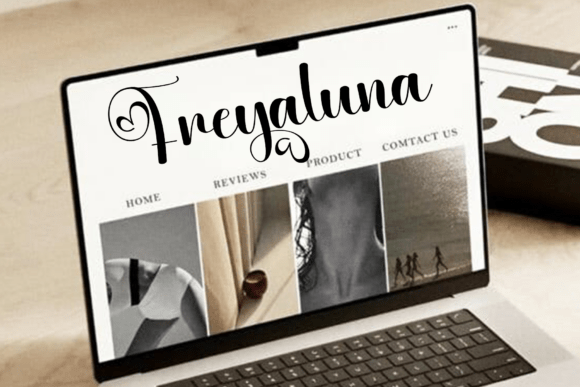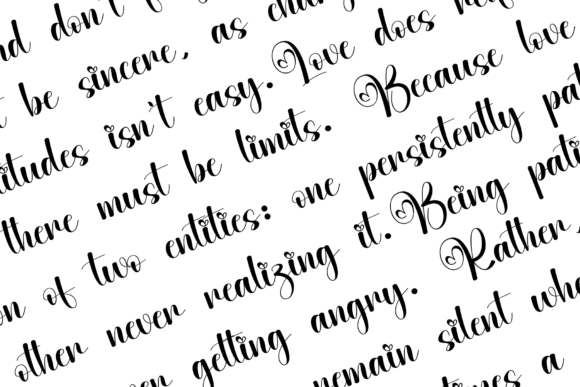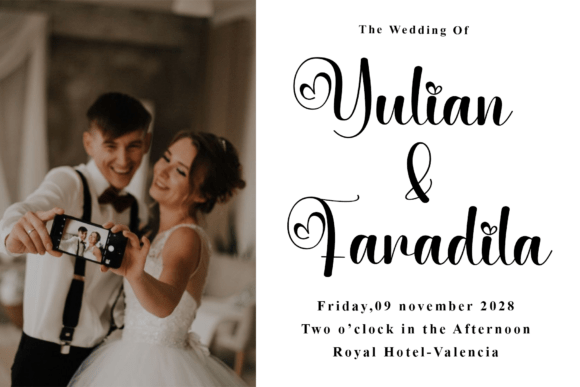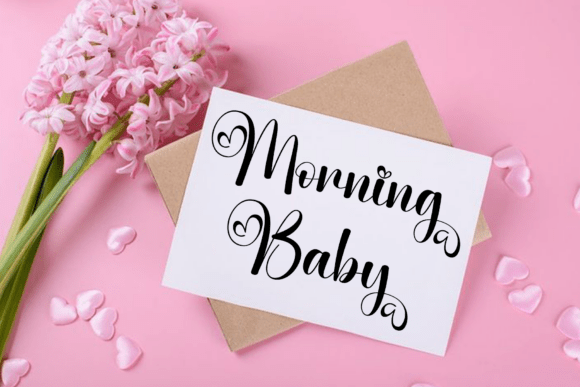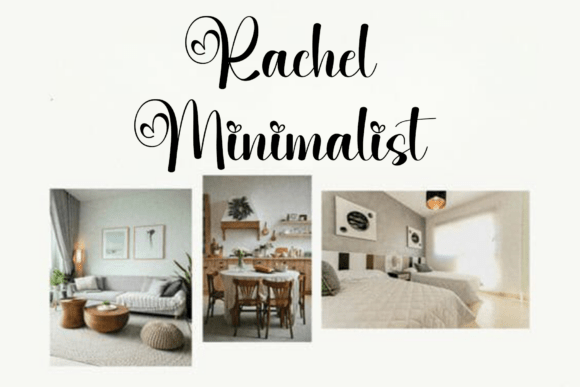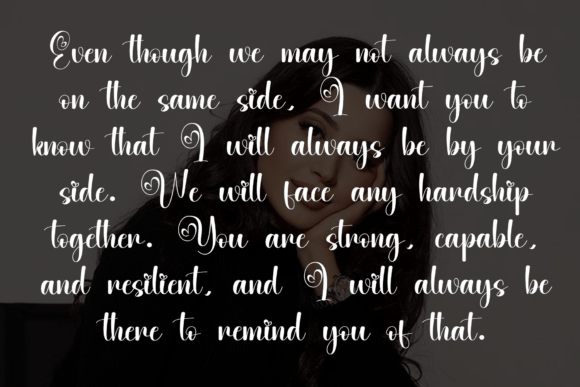
Bilgia Font: Elevate Your Designs with Elegance and Sophistication
In the realm of modern handwritten collections, the Bilgia Font stands out as a gorgeous addition, offering a typeface that is both unique and professional. This exquisite script features sweeping swashes and clean, elegant lines, making it an ideal choice for designers and crafters seeking to add a touch of luxury to their projects.
A Distinctive and Luxurious Touch
One of the standout features of the Bilgia Font is the heart details integrated into the swash capital letters. This distinctive touch adds a romantic and personal feel to any design, making it perfect for high-end, sophisticated projects. The heart details evoke a sense of love, care, and attention to detail, which is sure to impress clients and elevate your designs.
Ideal for Various Design Projects
The Bilgia Font is a versatile typeface that can be used in a variety of design projects, including:
- 💍 Wedding invitations and stationery: The elegant and romantic feel of the Bilgia Font makes it an excellent choice for wedding designs, adding a touch of sophistication and luxury.
- 💄 Luxury beauty and fashion branding: The clean lines and sweeping swashes of the Bilgia Font make it perfect for high-end beauty and fashion brands seeking to establish a sophisticated image.
- 📝 Signature logos and watermarks: The unique and professional style of the Bilgia Font makes it an excellent choice for signature logos and watermarks, adding a touch of elegance to any design.
- 🍾 High-end product labels: The Bilgia Font is also suitable for high-end product labels, providing a luxurious and sophisticated look that is sure to impress.
Perfect for Sophisticated Personal Branding
The Bilgia Font is not only ideal for high-end projects but also perfect for sophisticated personal branding. Its clean, flowing, and contemporary signature style makes it an excellent choice for:
- Chic social media graphics: The Bilgia Font can add a touch of elegance to your social media graphics, helping you establish a sophisticated online presence.
- Custom stationery: The Bilgia Font is perfect for custom stationery, providing a professional and luxurious look that is sure to impress.
- Any design that requires a neat, flowing, and contemporary signature style: The versatility of the Bilgia Font makes it suitable for any design project that requires a sophisticated and elegant look.
Why Choose the Bilgia Font?
The Bilgia Font offers a unique combination of elegance, sophistication, and luxury, making it an excellent choice for designers and crafters seeking to elevate their designs. Here are some reasons why you should choose the Bilgia Font:
- Unique and professional style: The Bilgia Font features a distinctive and luxurious style that is sure to impress.
- Versatile: The Bilgia Font can be used in a variety of design projects, from wedding invitations to high-end product labels.
- Elegant and sophisticated: The clean lines and sweeping swashes of the Bilgia Font make it perfect for designs that require a touch of luxury and sophistication.
In conclusion, the Bilgia Font is a gorgeous addition to any modern handwritten collection, offering a unique and professional typeface that is perfect for high-end, sophisticated projects. Its elegant and luxurious style makes it an excellent choice for designers and crafters seeking to elevate their designs and establish a sophisticated image.